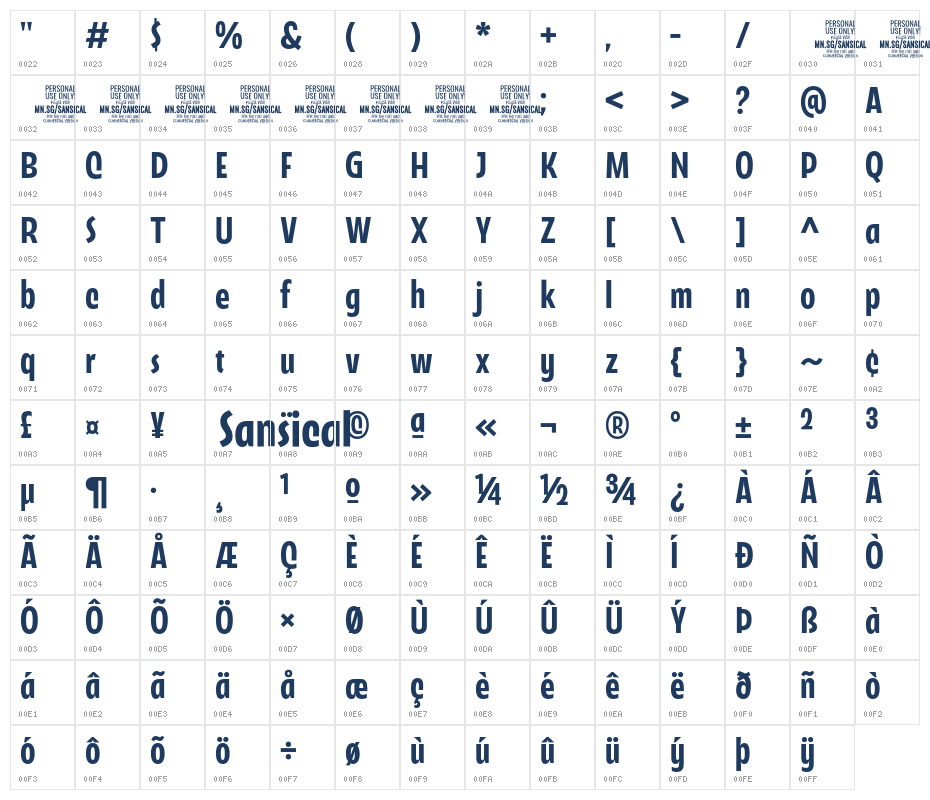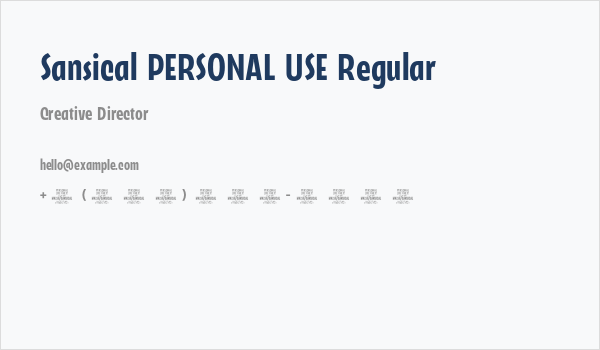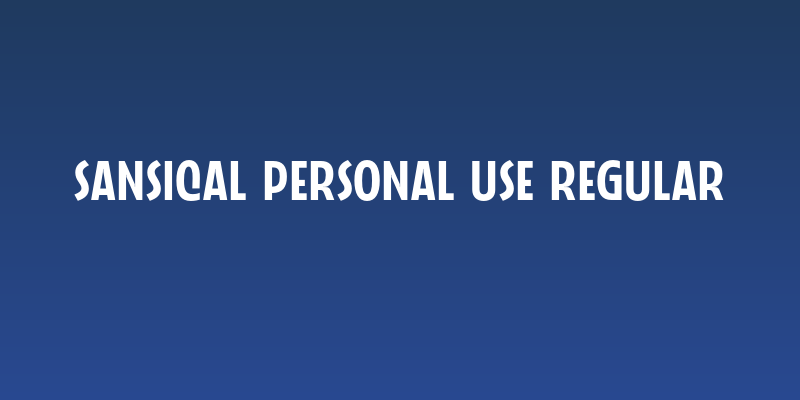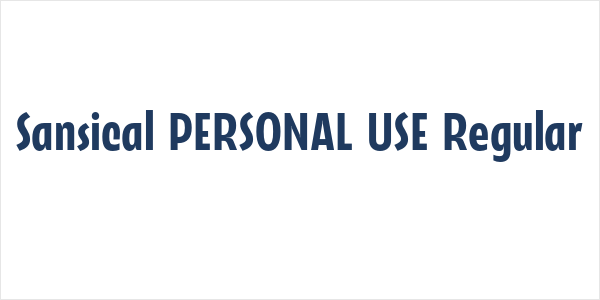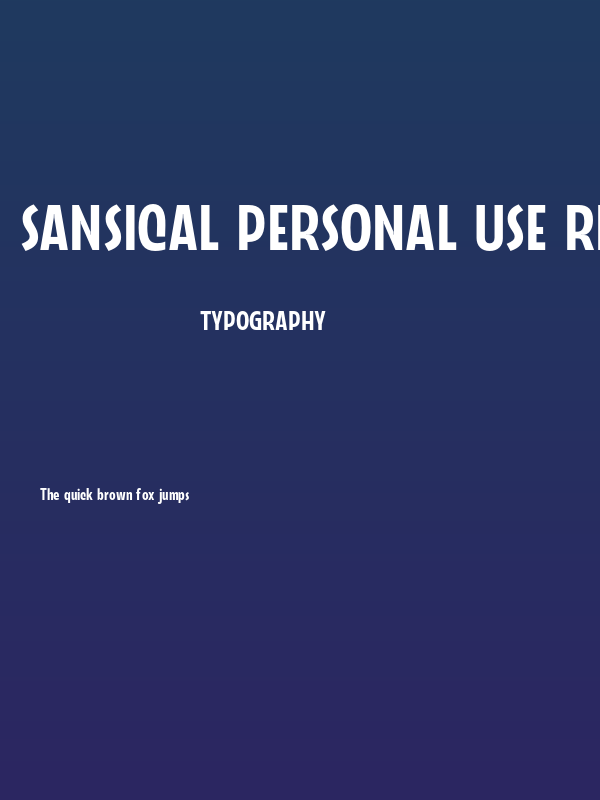
Sansical PERSONAL USE Regular Font
Sansical PERSONAL USE Regular Description
Bold, rounded sans-serif font with uniform stroke width and a modern appearance.
| Overall Style | Modern, Friendly |
| Use Case | Headlines, Display text, Logos |